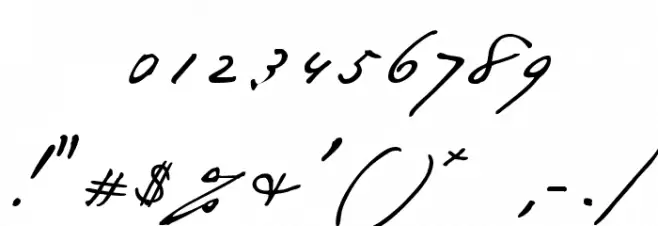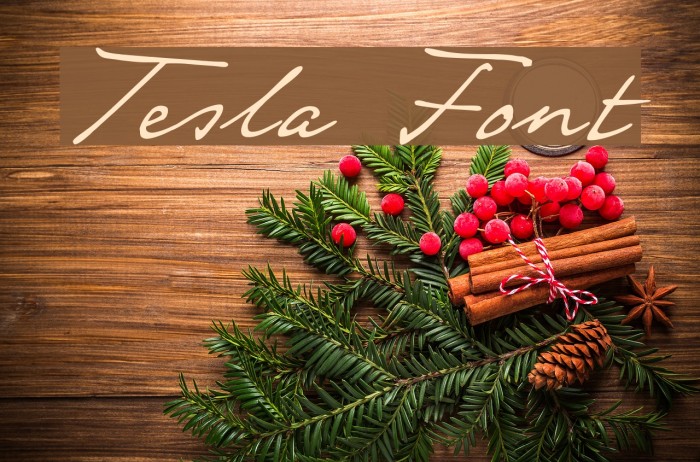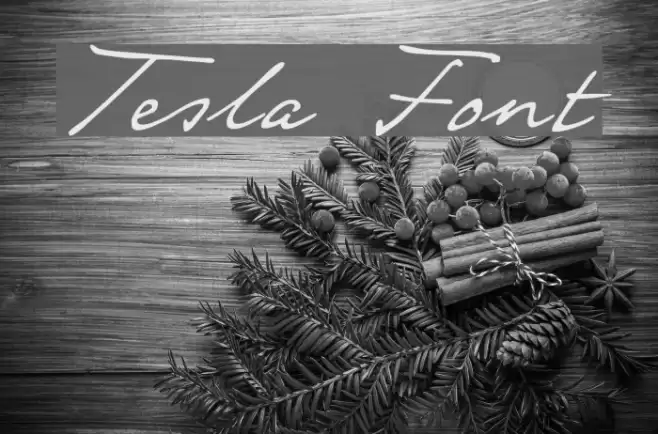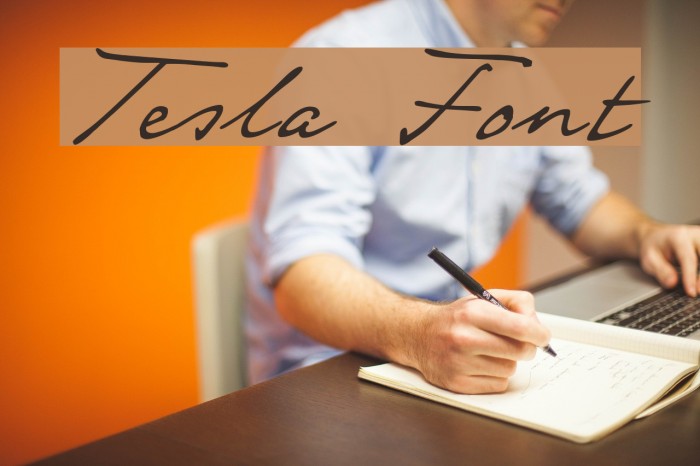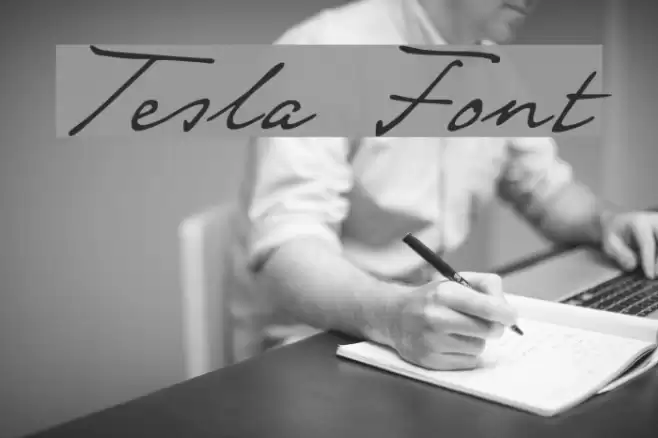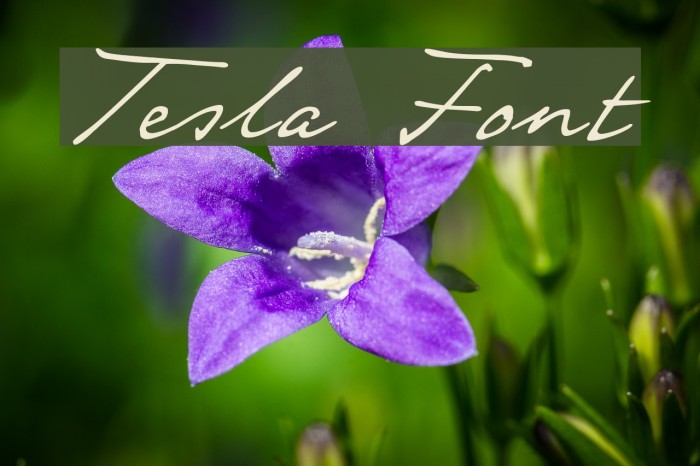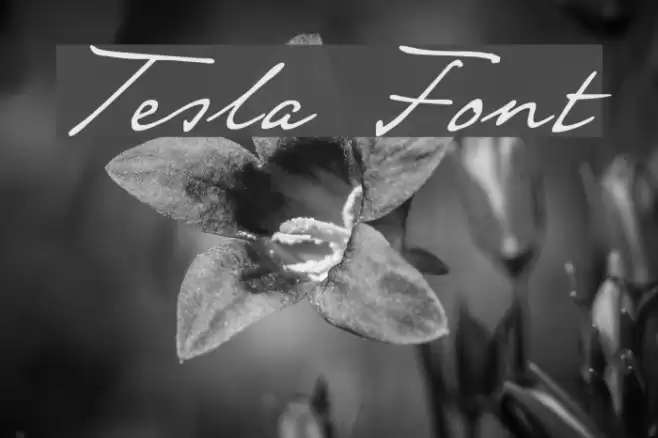
Tesla Font
Tesla Description
This font exudes a classic, elegant style with its flowing, cursive script. The characters are intricately designed, featuring smooth, continuous strokes that mimic the fluidity of handwriting. Each letter connects seamlessly to the next, creating a harmonious and sophisticated appearance. The uppercase letters are slightly more elaborate, with graceful loops and swirls, while the lowercase letters maintain a consistent, flowing form. The numerals and special characters are equally well-crafted, maintaining the overall aesthetic of the font. This script is perfect for projects that require a touch of elegance and refinement.
| Overall Style | Classic |
| Use Case | Logos, Invitations, Branding |
| Proposed Projects | Ideal for wedding invitations, elegant branding, personal stationery, and high-end product packaging. |